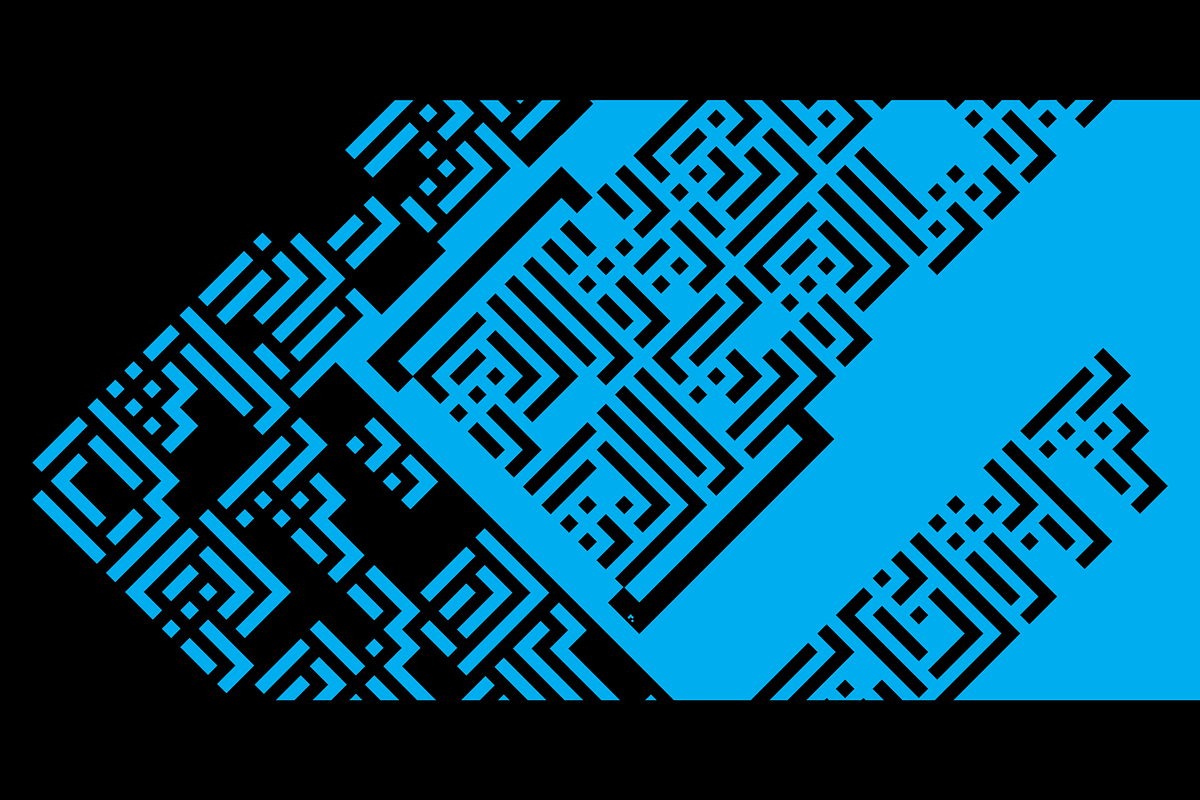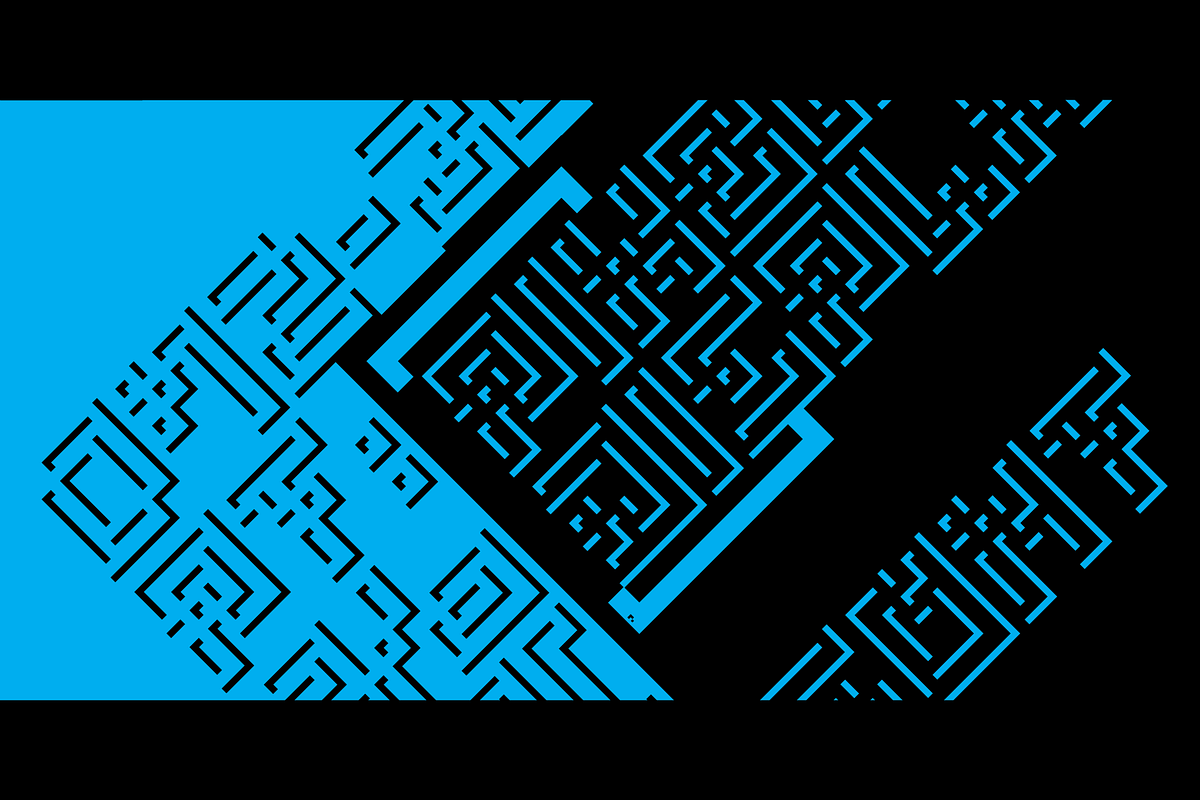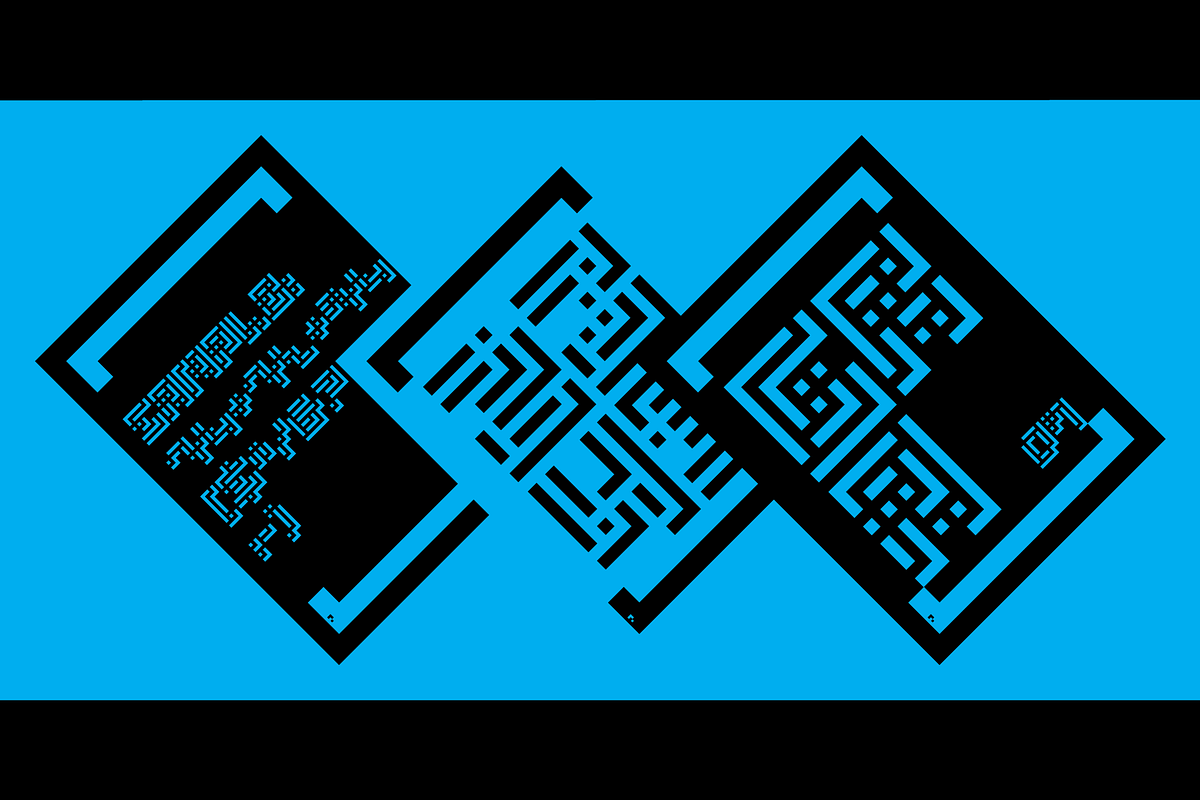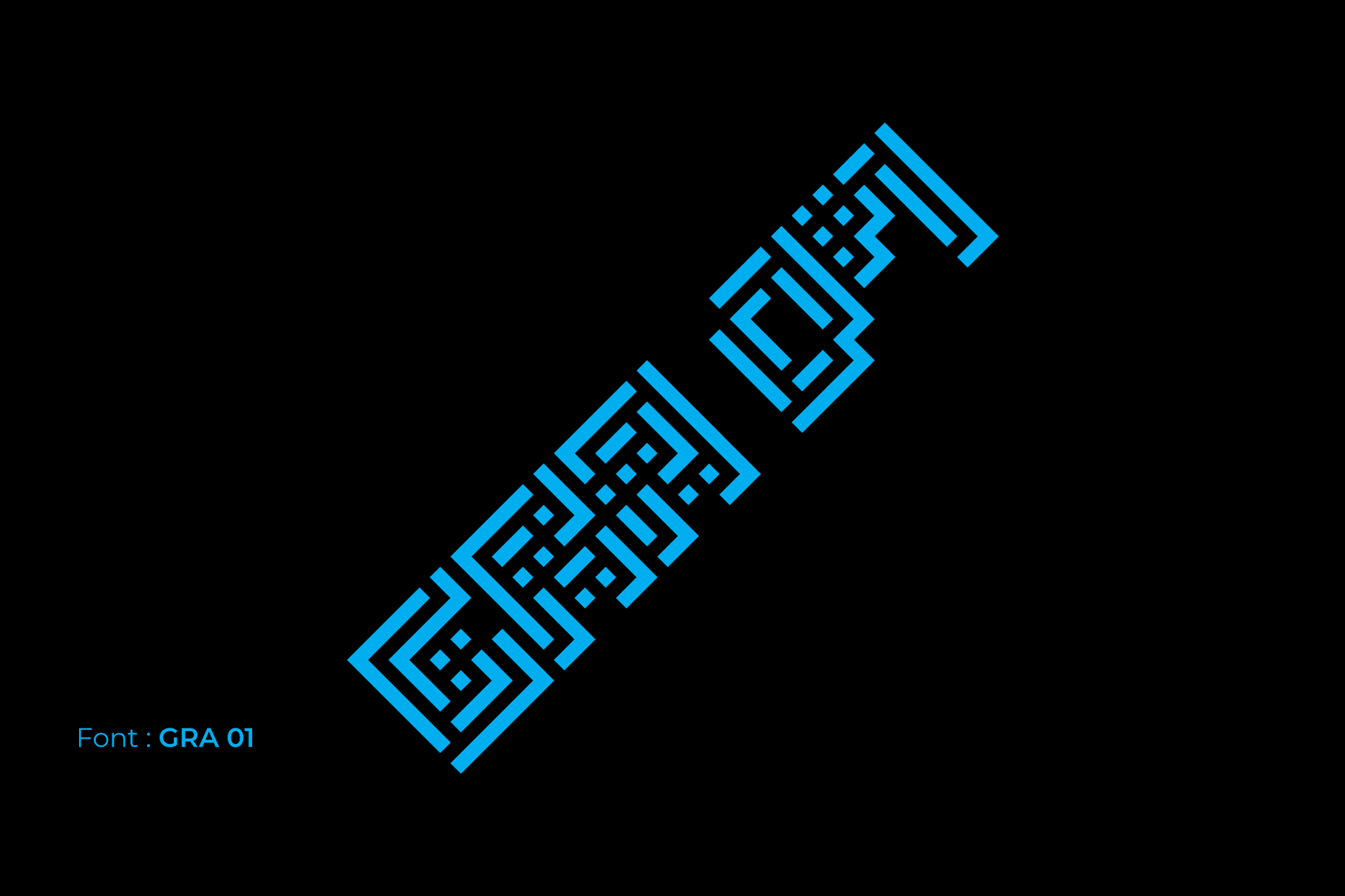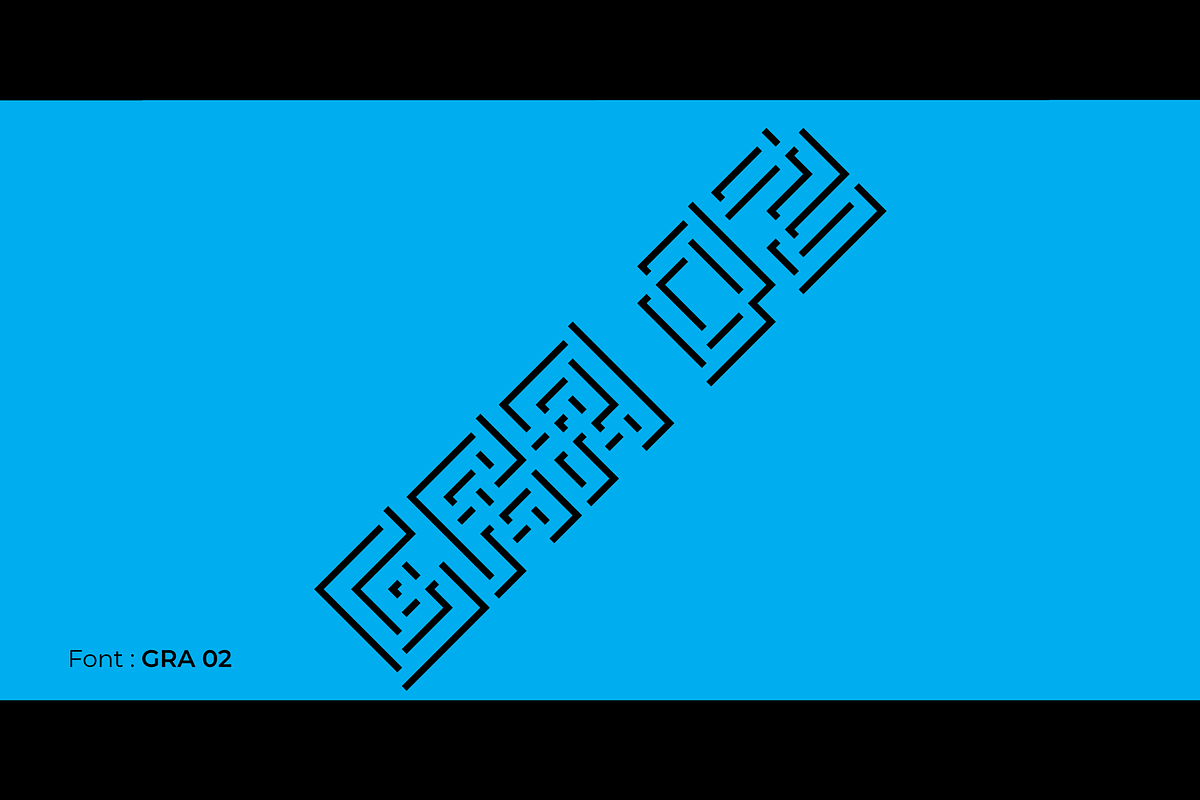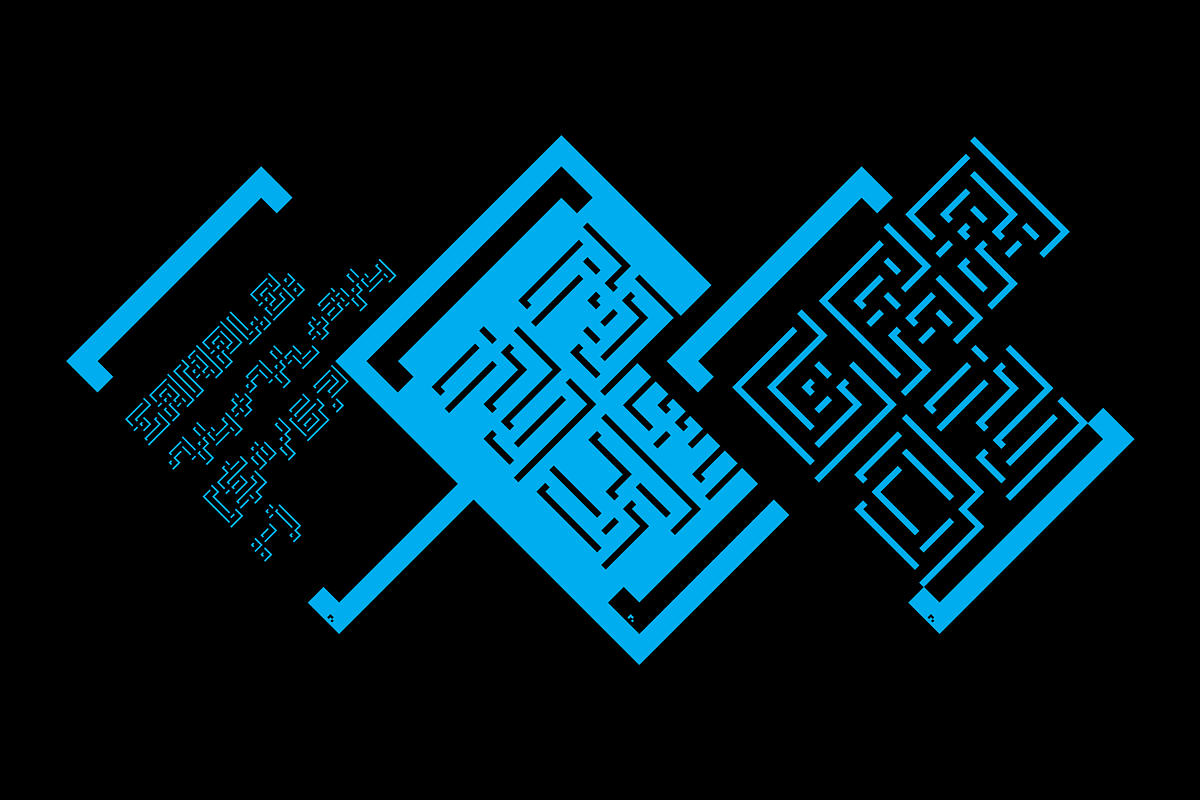
GRA Font Family
Gra 01 and Gra 02 are bold, geometric pixel fonts that push the boundaries of typography. Related to the experimental nature of the Graj typeface, these fonts feature a distinctive construction of layered, overlapping squares, creating a strong sense of depth and dimension. Each letter is crafted like a complex puzzle of square shapes, giving the fonts a striking, futuristic aesthetic.
Gra 01 offers a more solid and defined appearance, while Gra 02 has a slightly more delicate feel, with thinner outlines that enhance the perception of depth and light. Both fonts are ideal for creating bold headlines, logos, and other graphic elements that demand attention.
This typeface is perfect for bold, futuristic designs. Its intricate and experimental nature makes it suitable for a wide range of applications, including:
- Headlines and titles for futurist, sci-fi and cyberpunk projects
- Logos and branding for tech companies and gaming brands
- Poster design and print media
- Experimental typography and digital art
Key features:
- Geometric shapes: Complex constructions of squares and rectangles.
- Pixel art: A retro-inspired aesthetic with a modern twist.
- Depth and dimension: Layered elements create a sense of three-dimensionality.
- Unique and experimental: A bold departure from traditional typography.
- Versatile: Suitable for a wide range of design projects.
With their distinct and experimental style, these fonts are a bold and striking choice for designers looking to create visually impactful work.